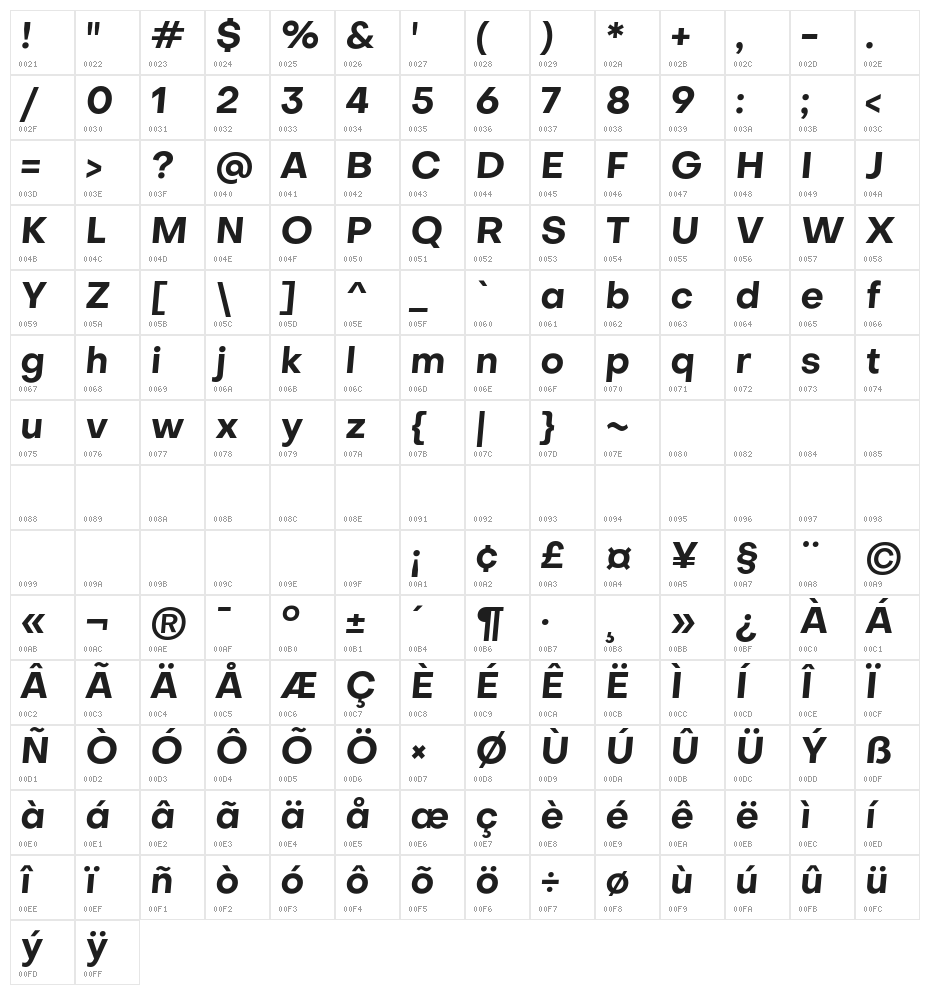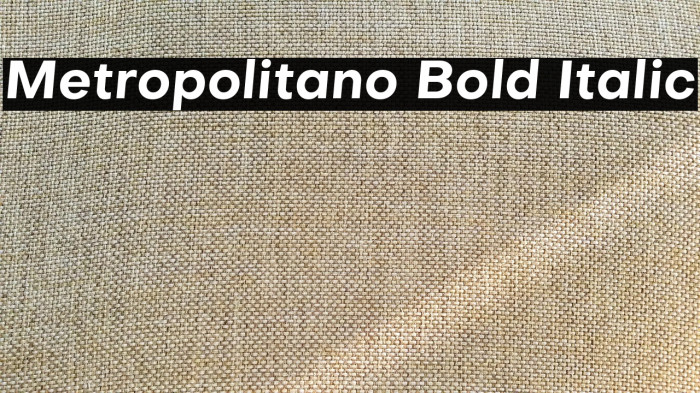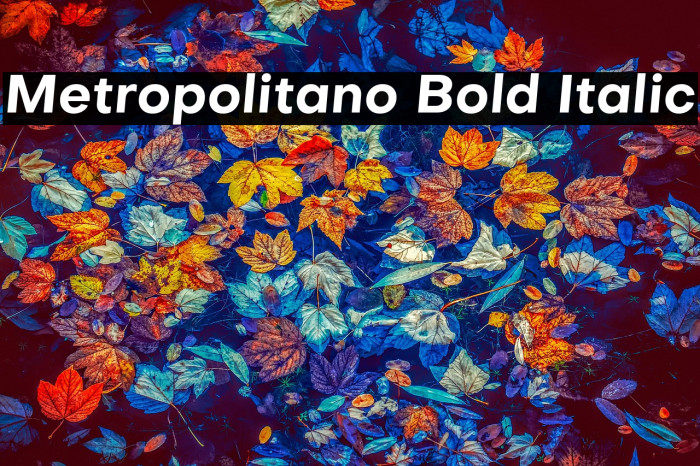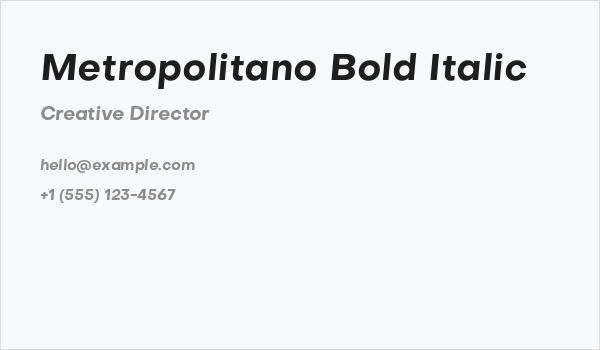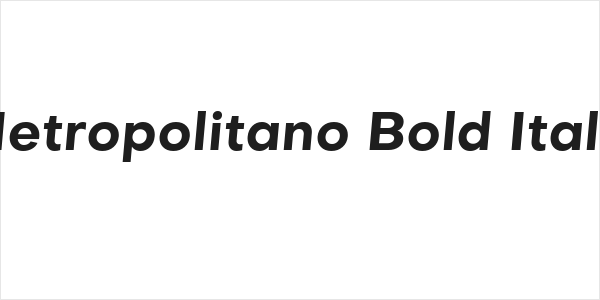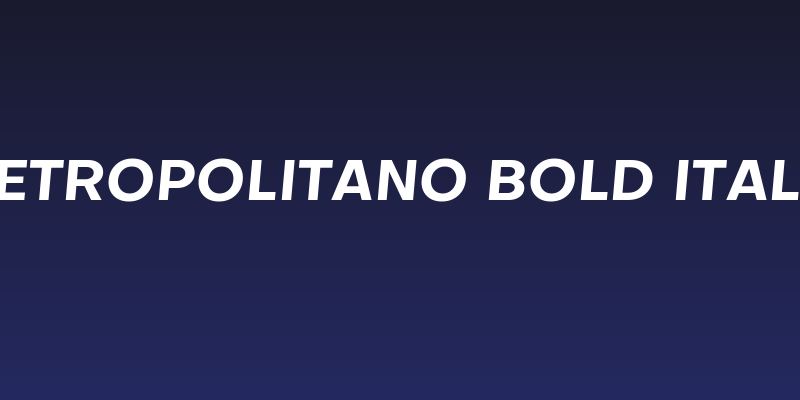
Metropolitano Bold Italic Font
Metropolitano Bold Italic Description
This font exhibits a bold and italicized style, characterized by its clean and modern sans-serif design. The letters are slightly slanted, giving a dynamic and forward-moving appearance. The bold weight ensures strong visibility and impact, making it suitable for attention-grabbing headlines. The characters are well-proportioned with consistent stroke thickness, providing a uniform and cohesive look. The numbers and special characters maintain the same bold and italicized style, ensuring consistency across all elements. The overall design is sleek and contemporary, ideal for modern digital and print media.
| Use Case | Headlines, Logos, Advertising |
| Proposed Projects | Ideal for headlines, branding, advertising, and digital media projects requiring a strong visual impact. |